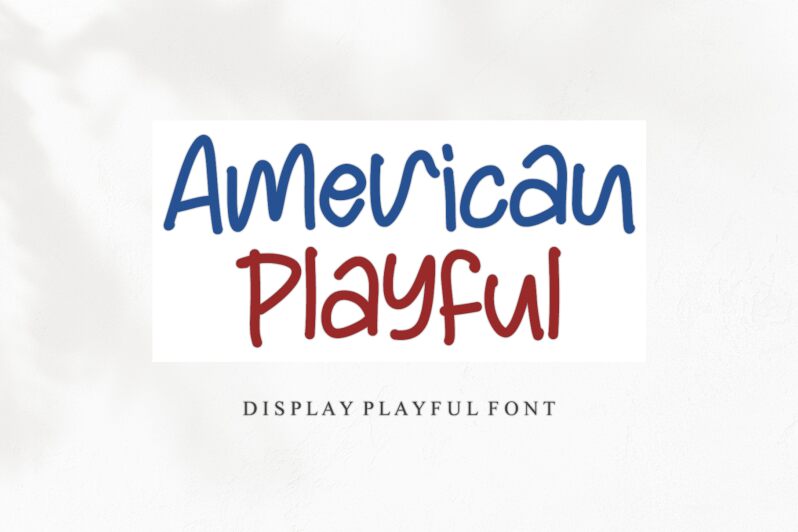
American Playful font by Letterafa Studio shines with a youthful vibe and an energetic essence. With an approachable and casual design, this modern free handwritten font demands attention in a relaxed manner. It’s perfect for any project that needs to appear fun, playful, and engaging.
Ideal use cases for this typeface are packaging, labels, stationery items, flyers, magazines \& newspaper covers. Another good application is branding projects like logos or business cards where originality matters. Social media posts \& captions can also look way more engaging when American Playful is used!